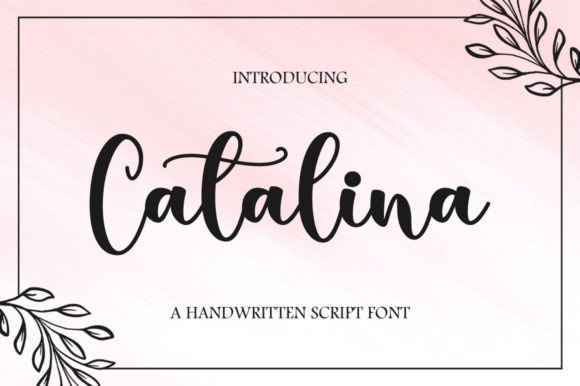
Catalina Font
Prepare yourself to be captivated by Catalina, a breathtaking script font that exudes elegance and charm. Inspired by the allure of a blooming flower shop, this font is a blossoming masterpiece, delicately crafted to bring a touch of nature's beauty to your creative projects.
Indulge in the allure of Catalina, a script that dances across the page with grace and fluidity. Each letter is a blooming testament to the artistry of Nirmala Creative, designed to evoke a sense of tranquility and inspiration. Experience the joy of crafting stunning logos that blossom with personality, branding that radiates with warmth, and quotes that resonate with the beauty of nature.
With Catalina, your words will take on a new life, captivating audiences with their enchanting charm. Its delicate curves and whimsical flourishes will transform your designs into works of art, leaving an unforgettable impression on all who behold them. Whether you're a seasoned designer or simply seeking to add a touch of elegance to your projects, Catalina is the perfect choice.
Immerse yourself in the enchanting world of Catalina, where creativity blooms with boundless possibilities. Embrace the allure of this exquisite script and let your imagination take flight.